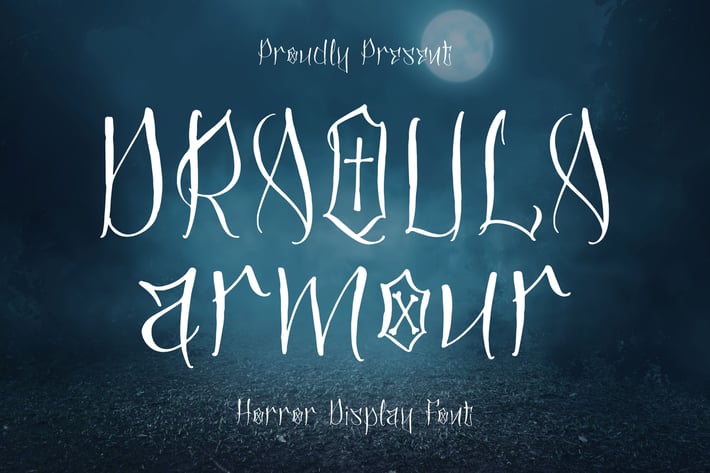
Draqula Armour Horror Display Font
Dracula Armour is a dark horror display font inspired by gothic folklore and medieval mysticism, crafted to evoke an eerie, ominous atmosphere. With its sharp strokes, distorted letterforms, and arcane details, this font is perfect for designs that demand a chilling, supernatural presence.
Horror display style with gothic character
Sharp, irregular strokes for a spooky aesthetic
Strong visual impact for dark-themed headlines
Unique alternates inspired by occult symbols
Horror movie posters & titles
Halloween campaigns & events
Dark fantasy branding
Album covers and game titles
Spooky quotes and merchandise
Where darkness meets typography — a horror font forged to haunt your visual storytelling.*